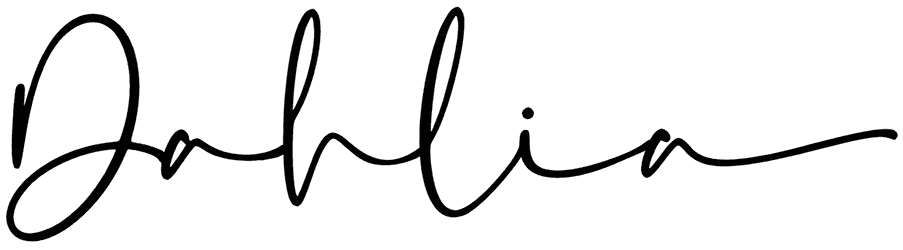
Dahlia Font
Still in fashion and keeps its fan, script font with intimate and friendly looking spreads a cozy feeling on whatever set, no matter business cards, cosmetic logo, apparel branding, or even invitations.
Since all characters of Dahlia unite and fit nicely with the earlier letter, it may make it tricky to read. Take this feminine font, no longer are you resigned to consuming your time commencing to create one from scratch!